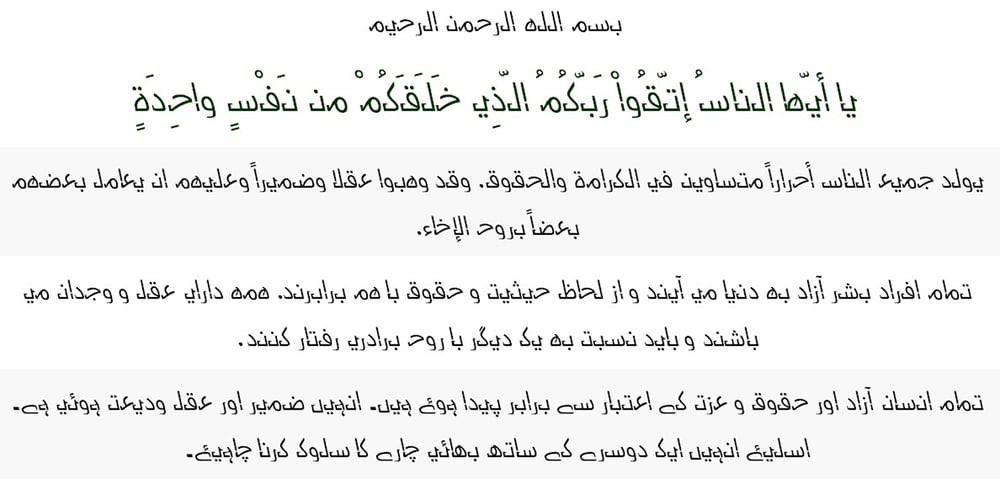
Raqmi Monoshape Font Family was designed by Saad D. Abulhab and published by Arabetics. Raqmi Monoshape contains 4 styles and family package options. Raqmi Monoshape is a simplified version of the Raqmi font family with unified (non-varying) shapes. This font family supports all Arabetic scripts covered by Unicode 6.1, and the latest Arabic Supplement and Extended-A Unicode blocks, including support for Quranic texts. It includes two weights: regular and light, each of which has normal and left-slanted Italic versions. The script design of this font family follows the Arabetics Mutamathil style utilizing varying x-heights. The Mutamathil type style utilizes only one glyph per Arabic Unicode character or letter, as defined by the Unicode Standards. Raqmi Monoshape includes the required Lam-Alif ligatures in addition to all vowel diacritic ligatures. Soft-vowel diacritic marks (harakat) are selectively positioned with most of them appearing on similar high and low levels—top left corner—, to clearly distinguish them from the letters. Tatweel is a zero-width glyph.